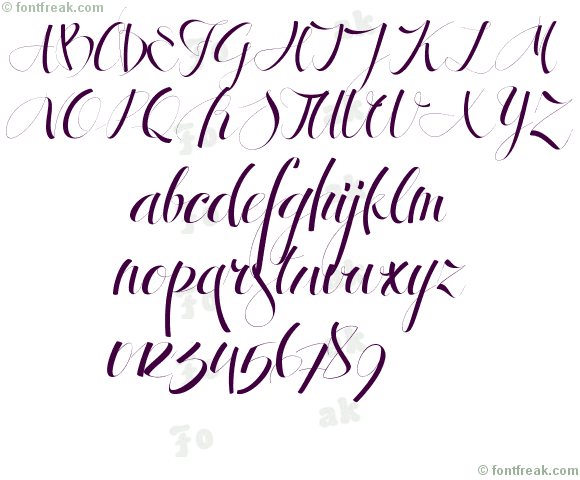
Antrokasdemo
Antrokasdemo, designed by Rokas Cicenas in 2012, is a captivating handwritten font that brings a touch of elegance and personality to any design project. This font falls within the script category, characterized by its fluid strokes and graceful curves. The visual appeal lies in its varying stroke weight, providing a delightful contrast that enhances readability while maintaining a sophisticated aesthetic. The letterforms feature ample spacing, allowing each character to stand out, while subtle decorative elements add a unique charm to the overall design.
The Antrokasdemo font is particularly well-suited for a variety of creative applications. It excels in wedding invitations, where its romantic flair can beautifully convey the joy of the occasion. Additionally, it works wonderfully for restaurant menus, providing an inviting feel that complements culinary offerings. Graphic designers can also leverage this font for branding materials, creating memorable logos that leave a lasting impression. For content creators, Antrokasdemo adds a personal touch to blogs and social media posts, making them more engaging and visually appealing.
Targeting graphic designers, small business owners, and content creators, Antrokasdemo offers a versatile solution for anyone looking to elevate their visual communications. Its unique style appeals to those who appreciate artistry and want to make their projects stand out.
What sets the Antrokasdemo font apart is its ability to blend elegance with approachability. The balance between decorative flair and readability makes it a fantastic choice for numerous applications. With its availability as a freeware, anyone can enjoy the Antrokasdemo font free download, making it accessible for both personal and commercial projects. This font is sure to inspire creativity and elevate any design endeavor.